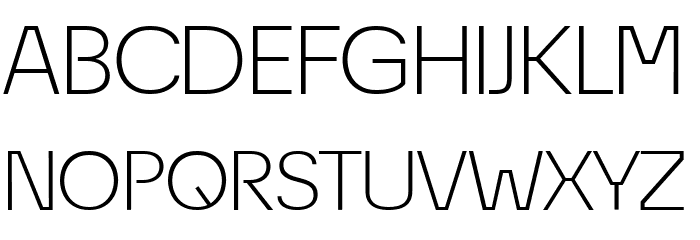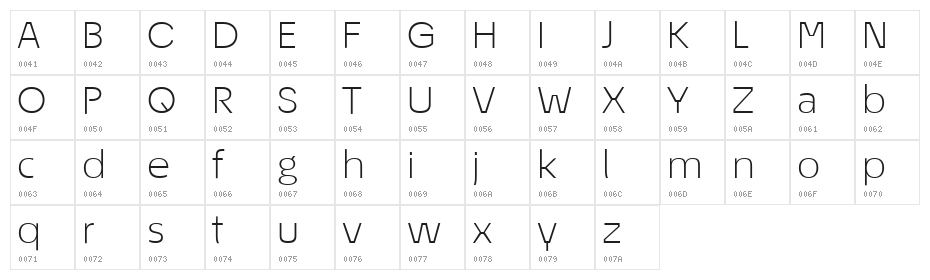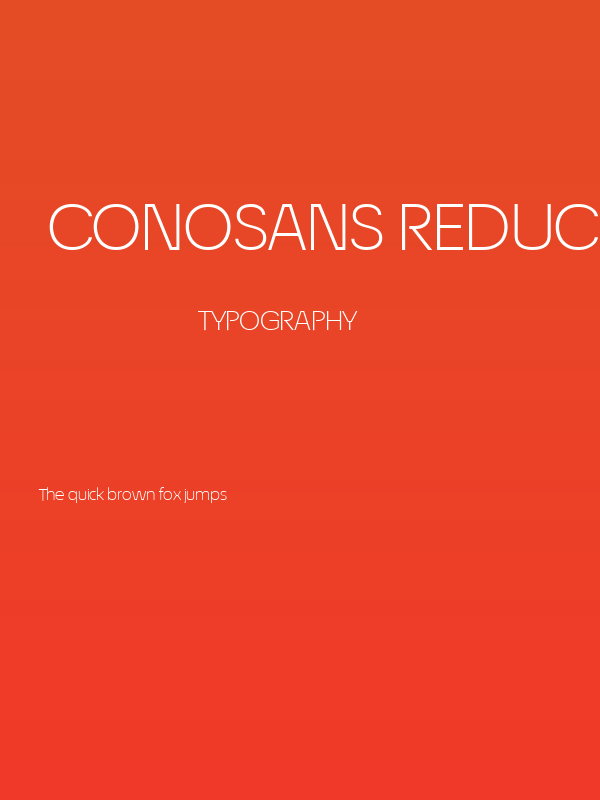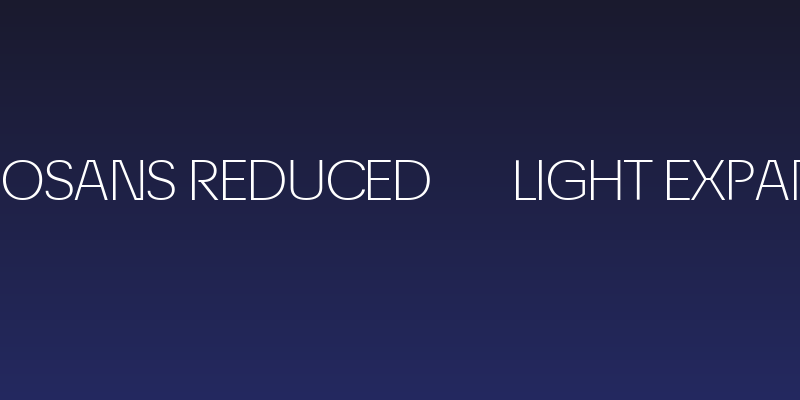
ÉconoSans Reduced 43 Light Expanded Font
ÉconoSans Reduced 43 Light Expanded Description
This font features a clean and modern sans-serif design with a light weight and expanded width. The characters are elegantly crafted with smooth curves and a geometric structure, providing a contemporary and professional appearance. The uppercase and lowercase letters maintain a consistent style, offering a harmonious look. The font's expanded width allows for excellent readability, making it suitable for various design applications. The character spacing is normal, ensuring clarity and legibility. The font's minimalistic design is complemented by its medium contrast, which adds a subtle touch of sophistication.
| Proposed Projects | Ideal for branding, advertising, web design, and editorial layouts. |